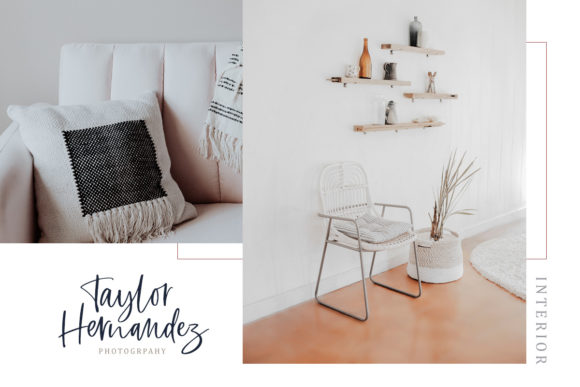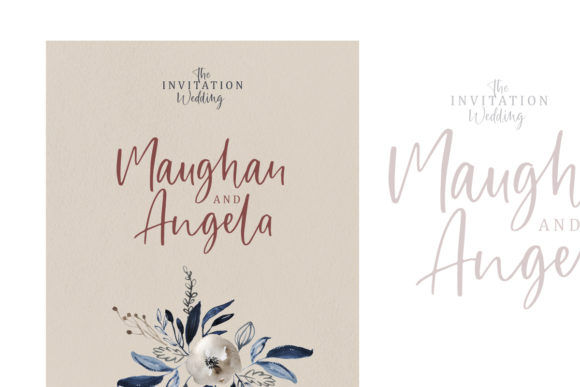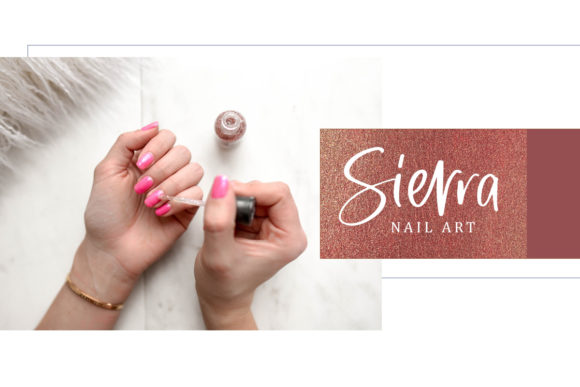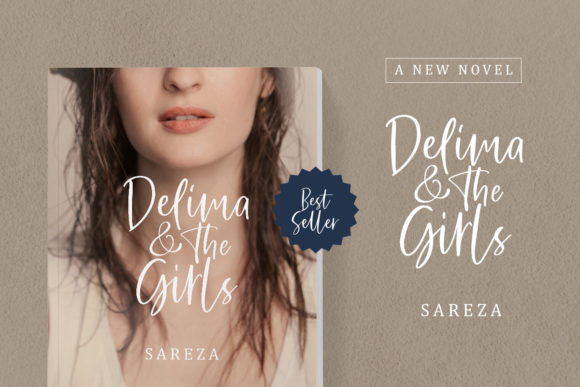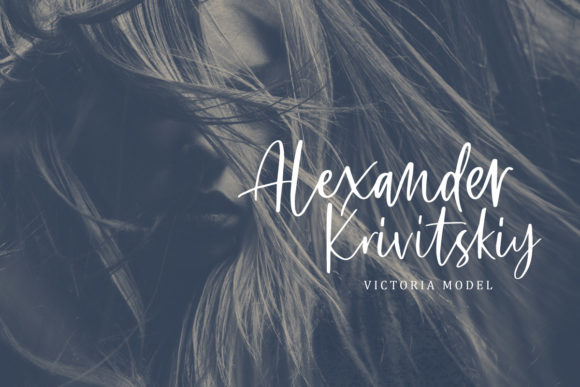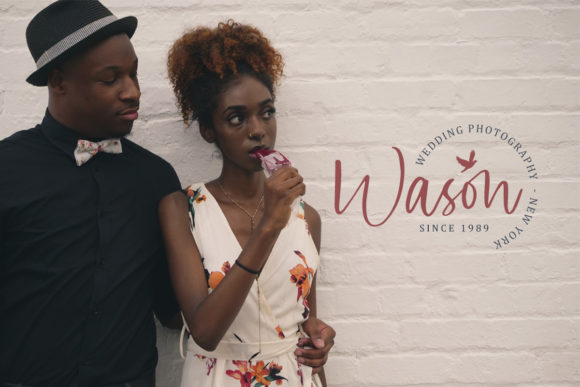
Introduction to Sharon Baker Font
Sharon Baker is a light and casual handwritten font, full of authenticity.
Get inspired by its unique feel .
Key Features of Sharon Baker Font